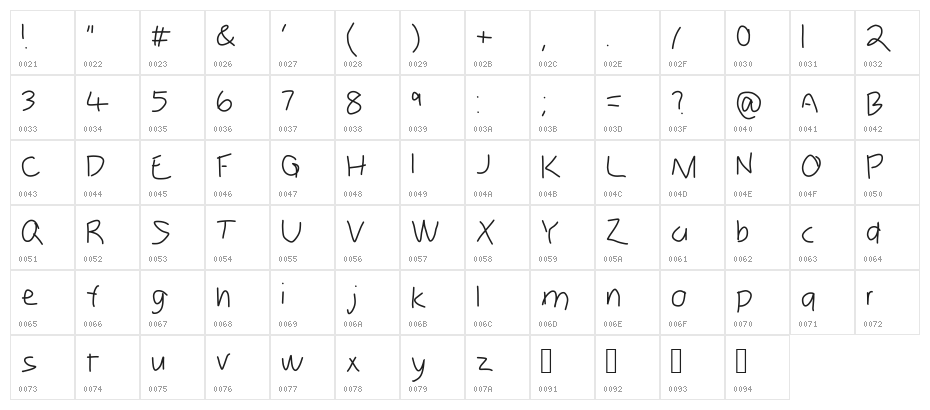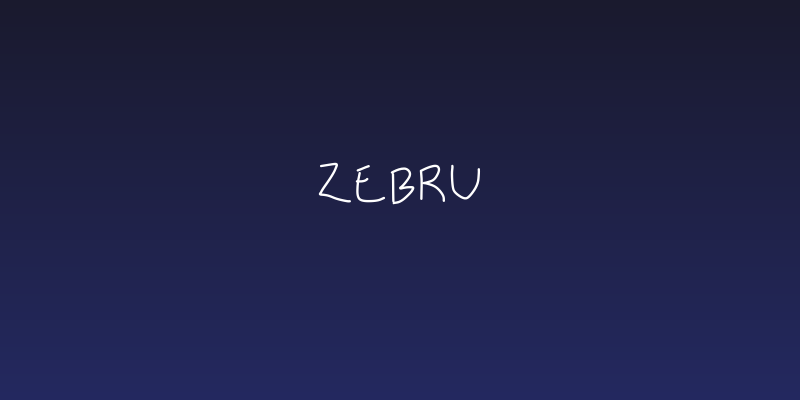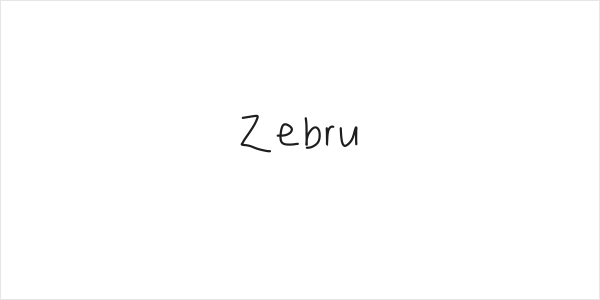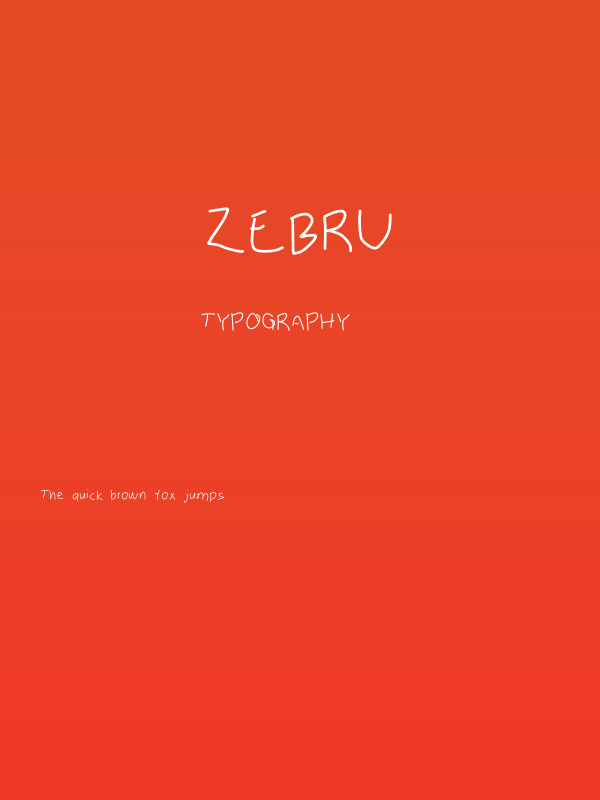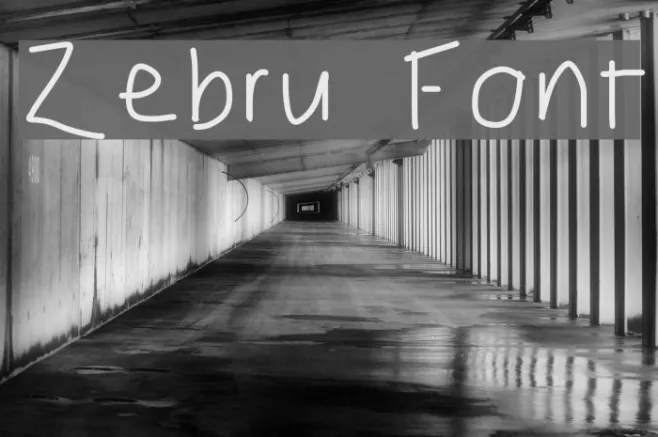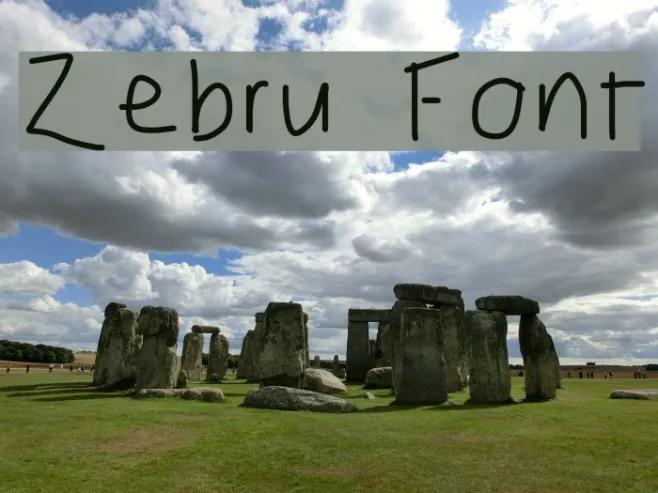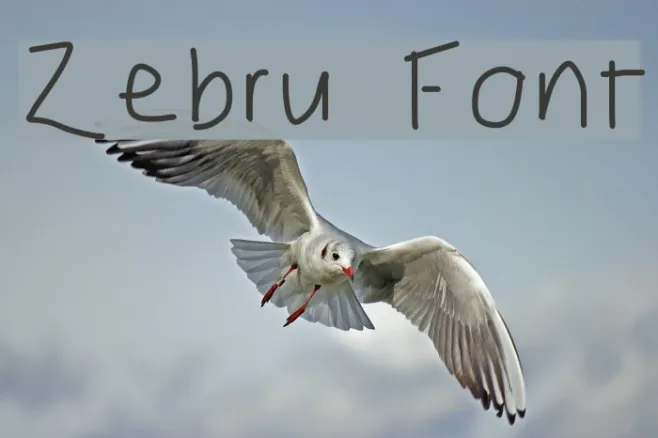
Zebru Font
Zebru Description
This font features a playful and casual handwritten style, characterized by its irregular strokes and slightly uneven baseline. The letters have a whimsical, organic feel, with a mix of rounded and angular shapes that give it a unique personality. The uppercase letters are bold and prominent, while the lowercase letters maintain a consistent flow, enhancing readability. The numerals and special characters follow the same informal style, making the font versatile for various creative applications. Its overall appearance is friendly and approachable, suitable for projects that require a personal touch.